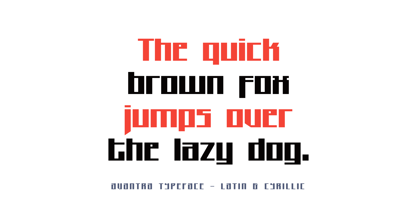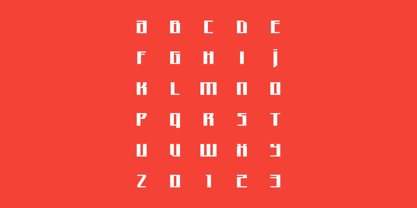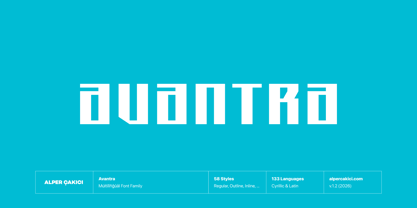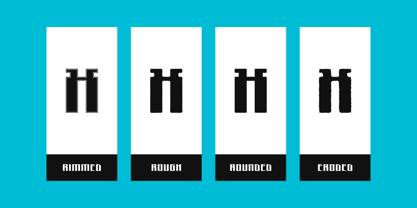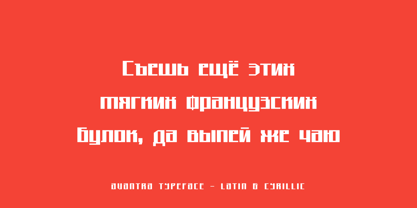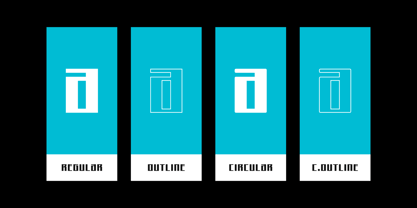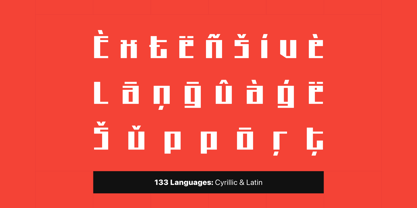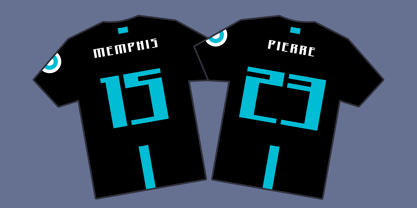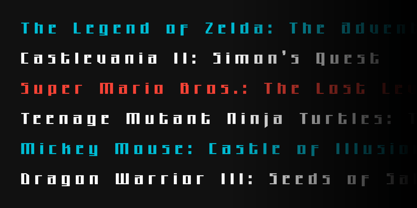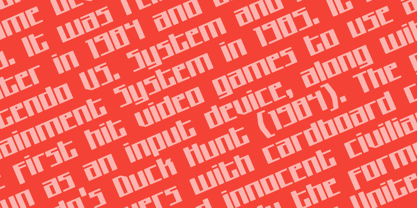
Avantra
by AlperCakici
The Avantra Font Family was designed by Alper Çakıcı and published by AlperCakici. Avantra contains 58 styles and family package options. More about this family
Avantra is a bold, futuristic display typeface built on sharp geometry and modular structure. Defined by its rectangular forms, angular cuts, and techno-industrial rhythm, it delivers a striking visual voice that feels both mechanical and expressive. Designed for versatility, Avantra spans an extensive family of styles—from clean and precise to textured and organic. The core geometric foundation is expanded through Angular, Circular, Rounded, Brush, Pencil, Inline, Outline, Rimmed, Rough, Noise, and Eroded variations, each with matching italics. This wide stylistic range allows designers to move seamlessly between sleek minimalism and experimental grunge within a single cohesive system. Its distinctive letterforms emphasize strong verticals, squared counters, and sharp terminals, making it ideal for futuristic branding, gaming titles, sci-fi visuals, posters, album covers, and digital interfaces. The circular and rounded variants soften the rigid geometry, while brush and rough styles introduce humanized energy and motion. Avantra supports a broad multilingual character set, covering 130+ languages, making it suitable for global projects without sacrificing its unique identity. Whether you’re crafting a high-tech identity, an experimental layout, or bold headline typography, Avantra provides the flexibility and personality to stand out.